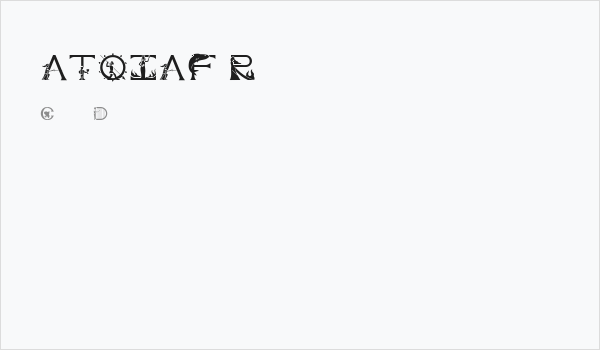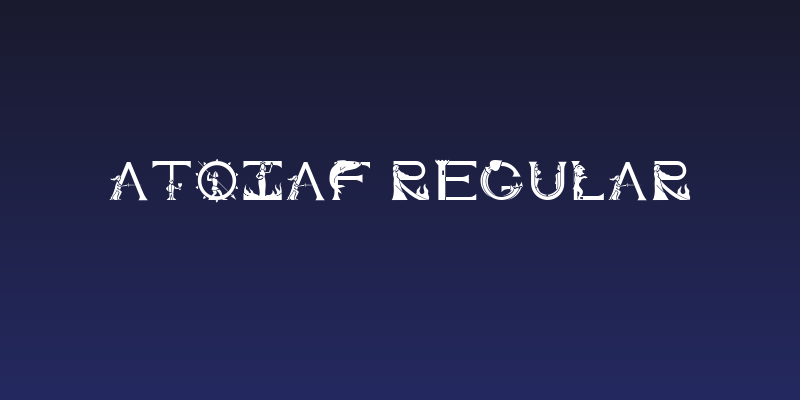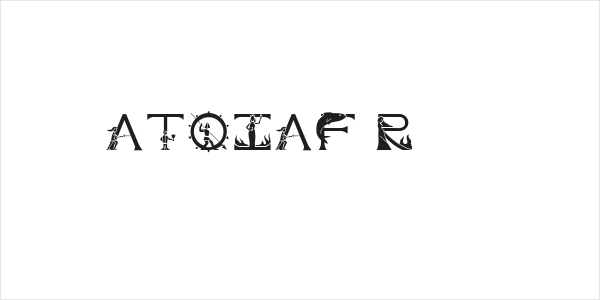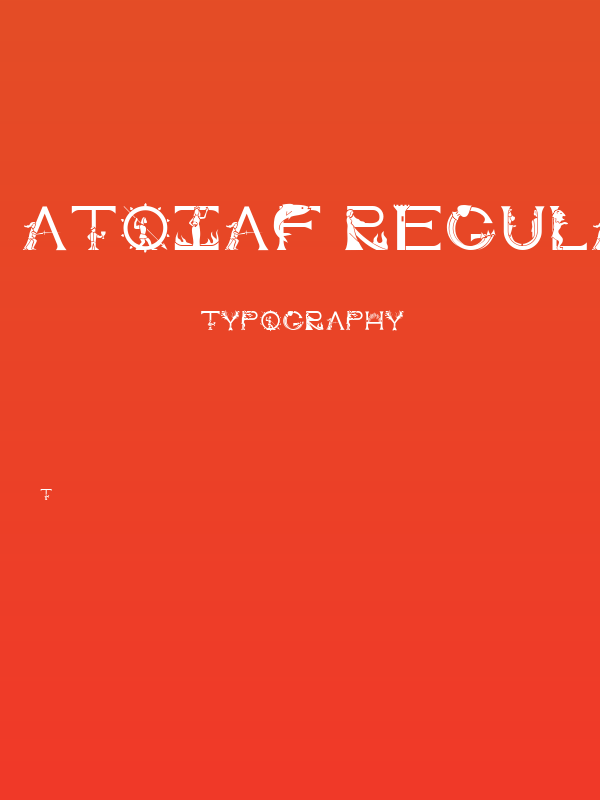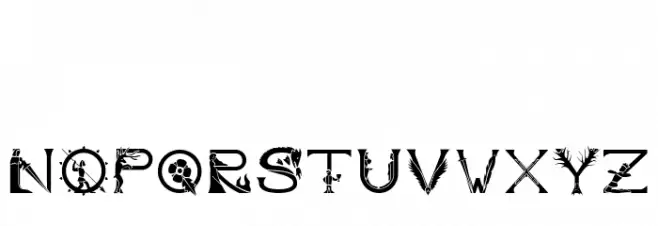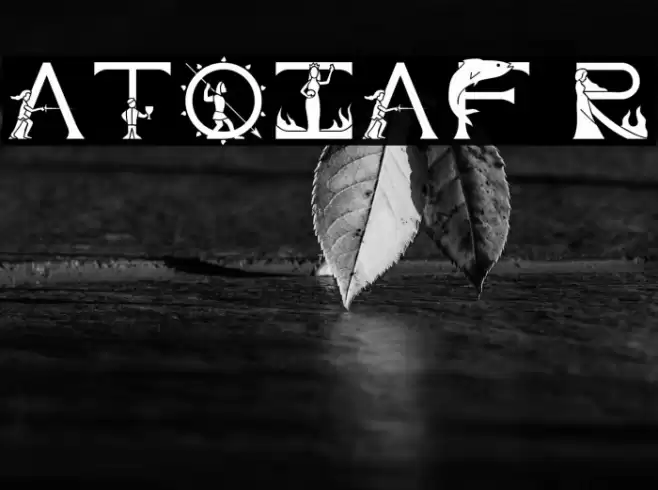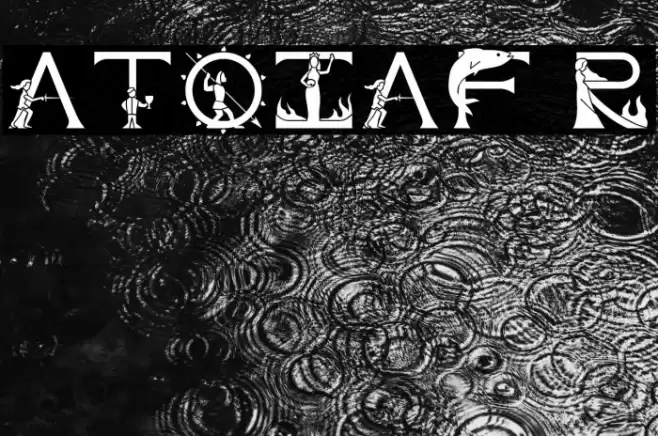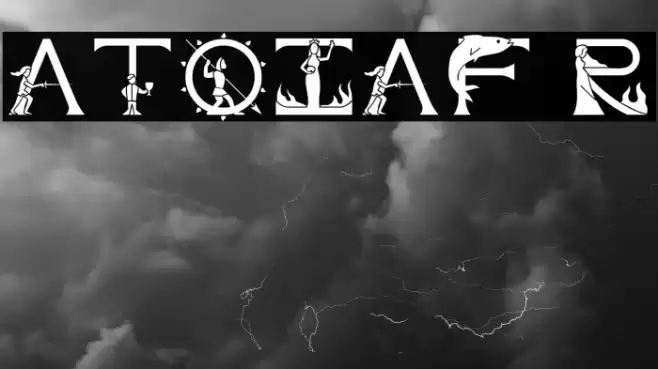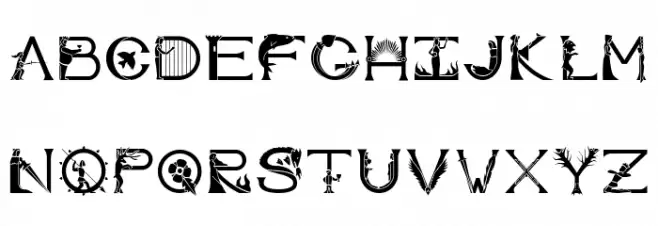
ATOIAF Regular Font
ATOIAF Regular Description
This font features a highly decorative and intricate design, with each character incorporating unique elements that resemble fantasy or mythical themes. The uppercase letters are adorned with various embellishments, such as spikes, swirls, and organic shapes, giving the font a distinct and artistic appearance. The overall style is bold and eye-catching, making it suitable for projects that require a strong visual impact. The characters are evenly spaced, but the decorative elements create a complex visual texture that adds depth and interest.
| Proposed Projects | Ideal for fantasy book covers, themed event posters, or video game titles. |